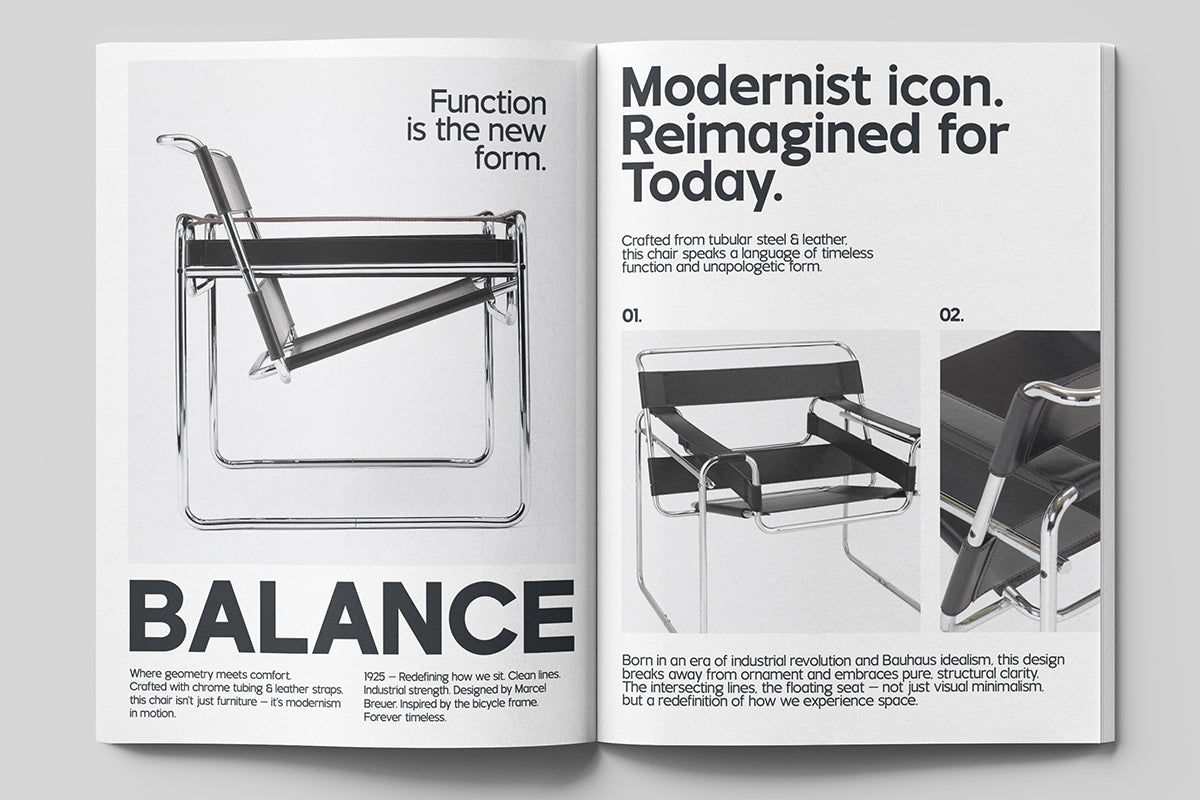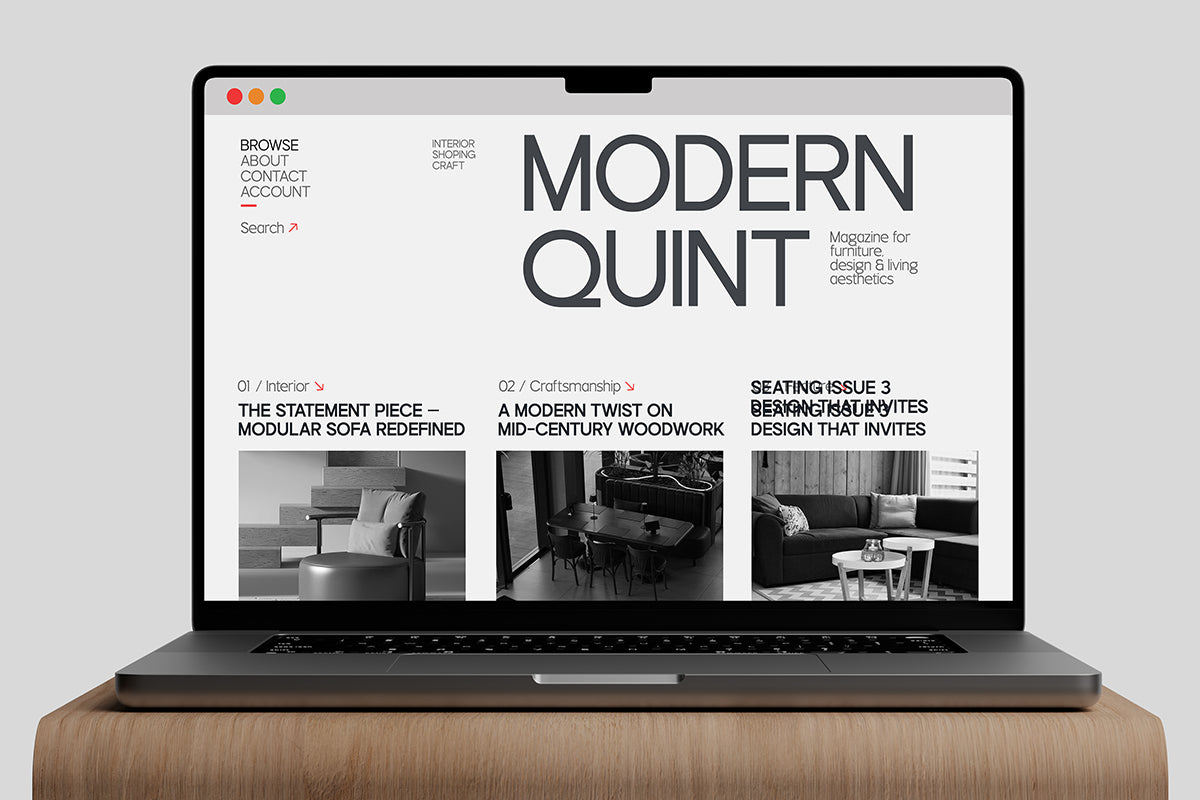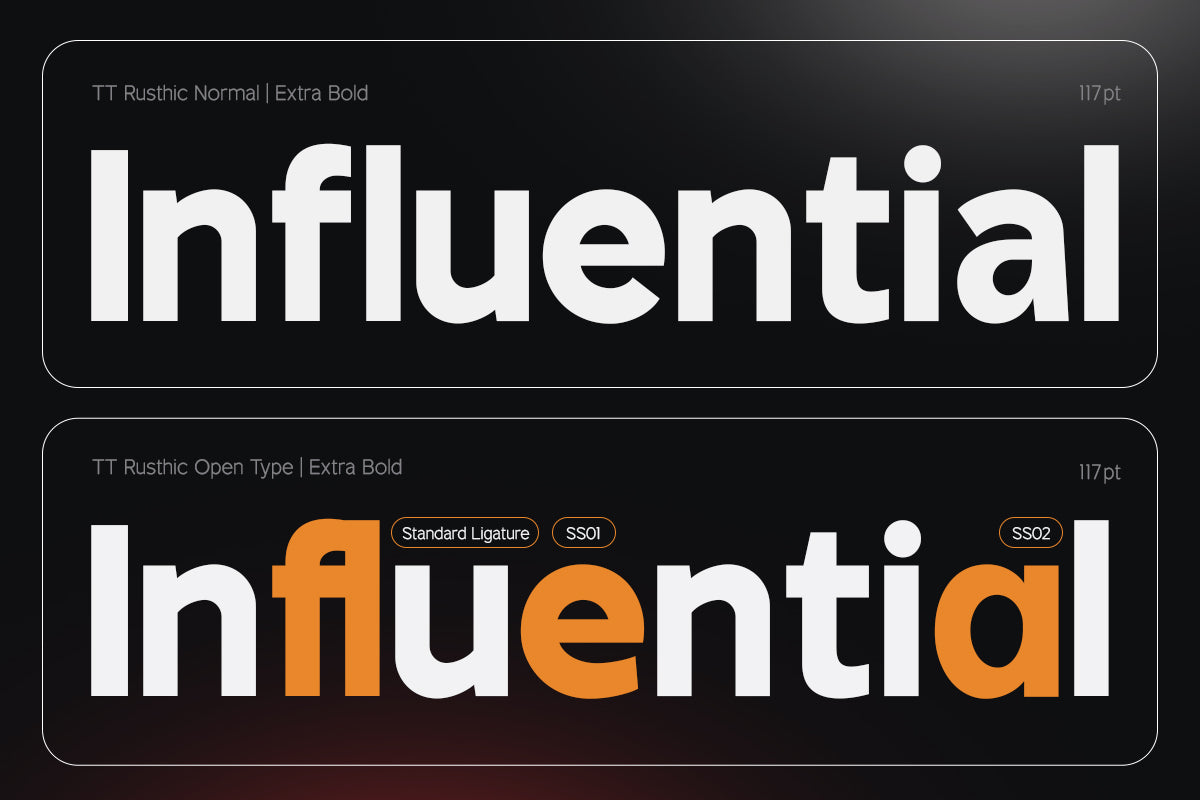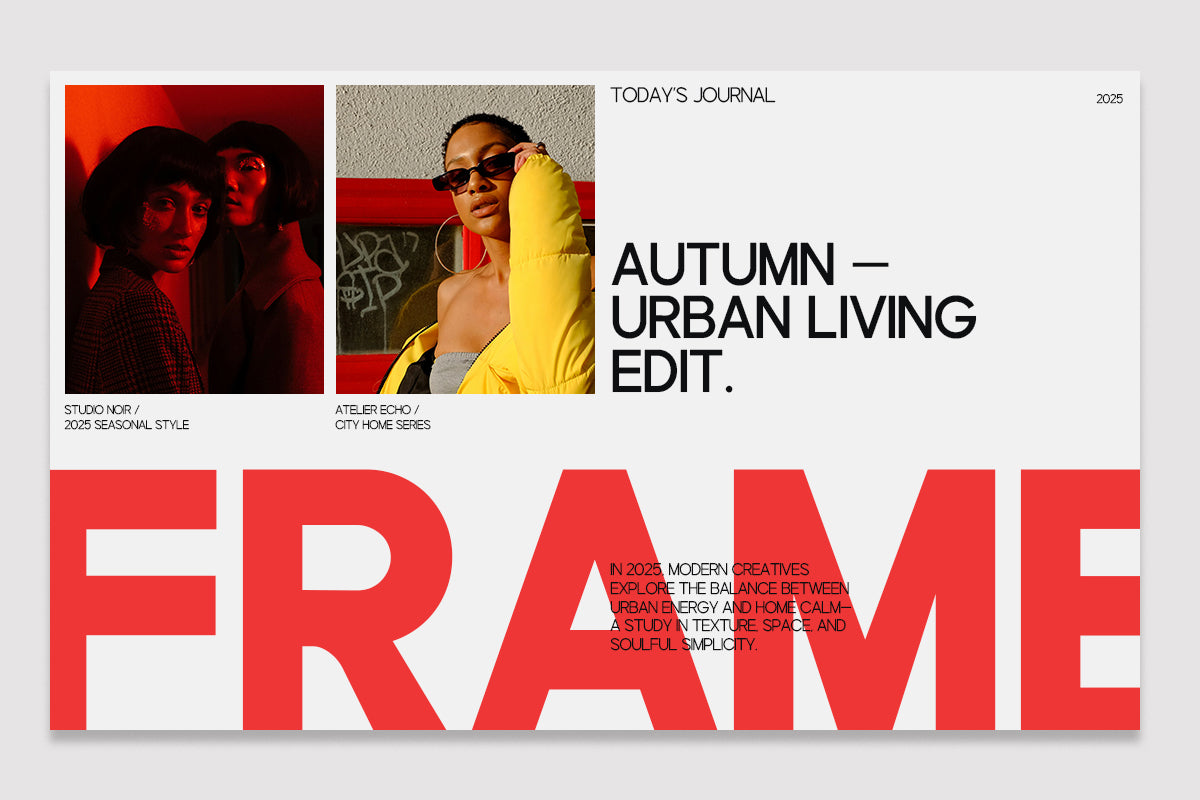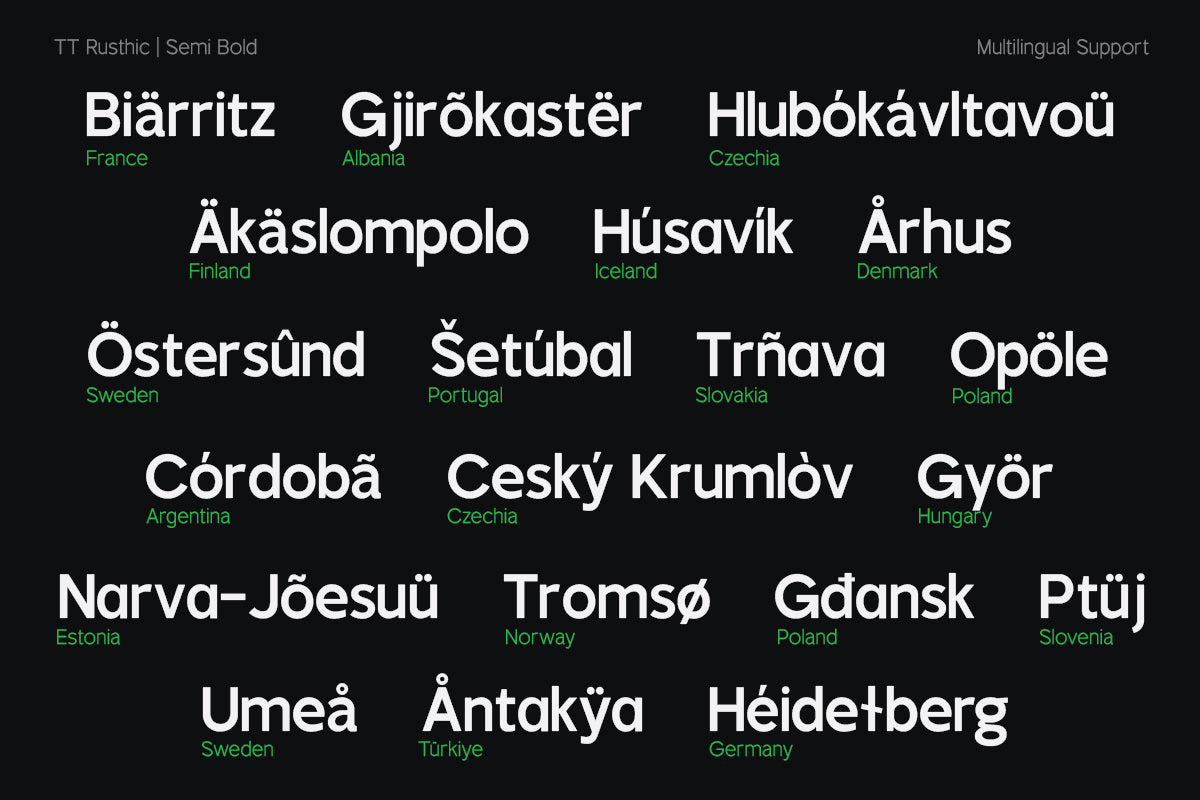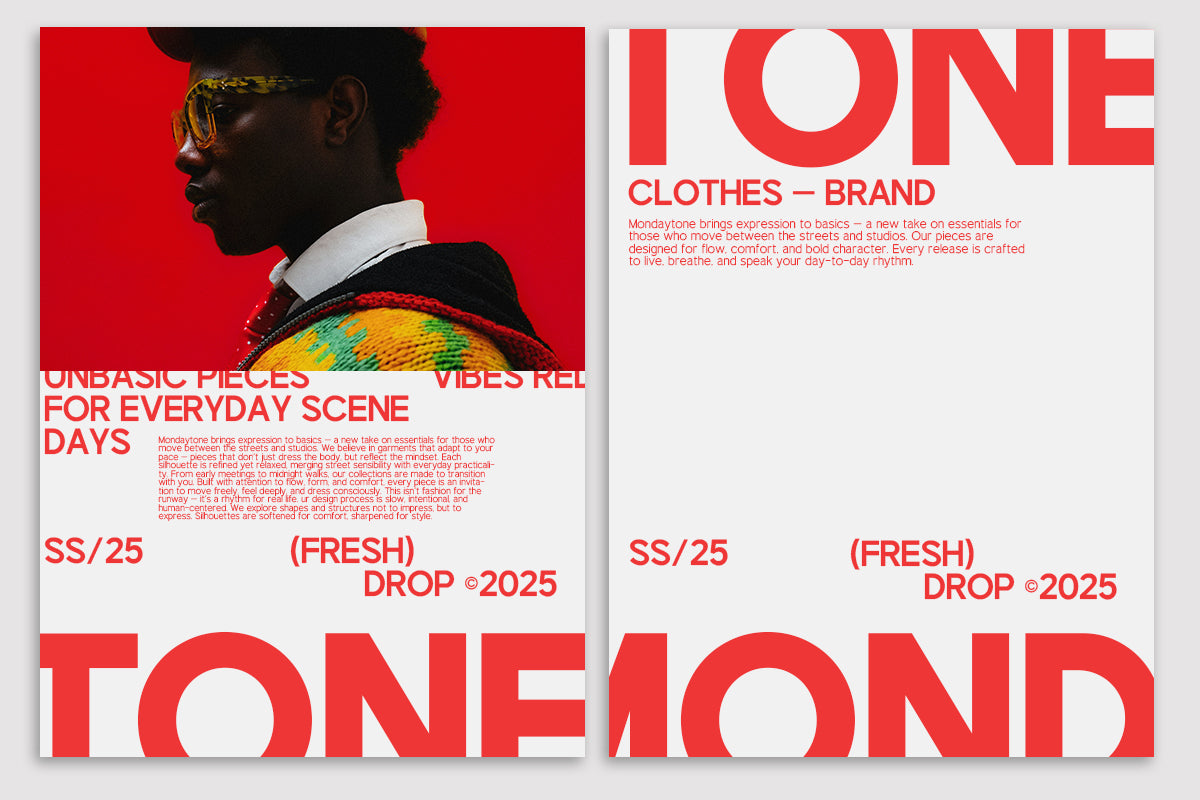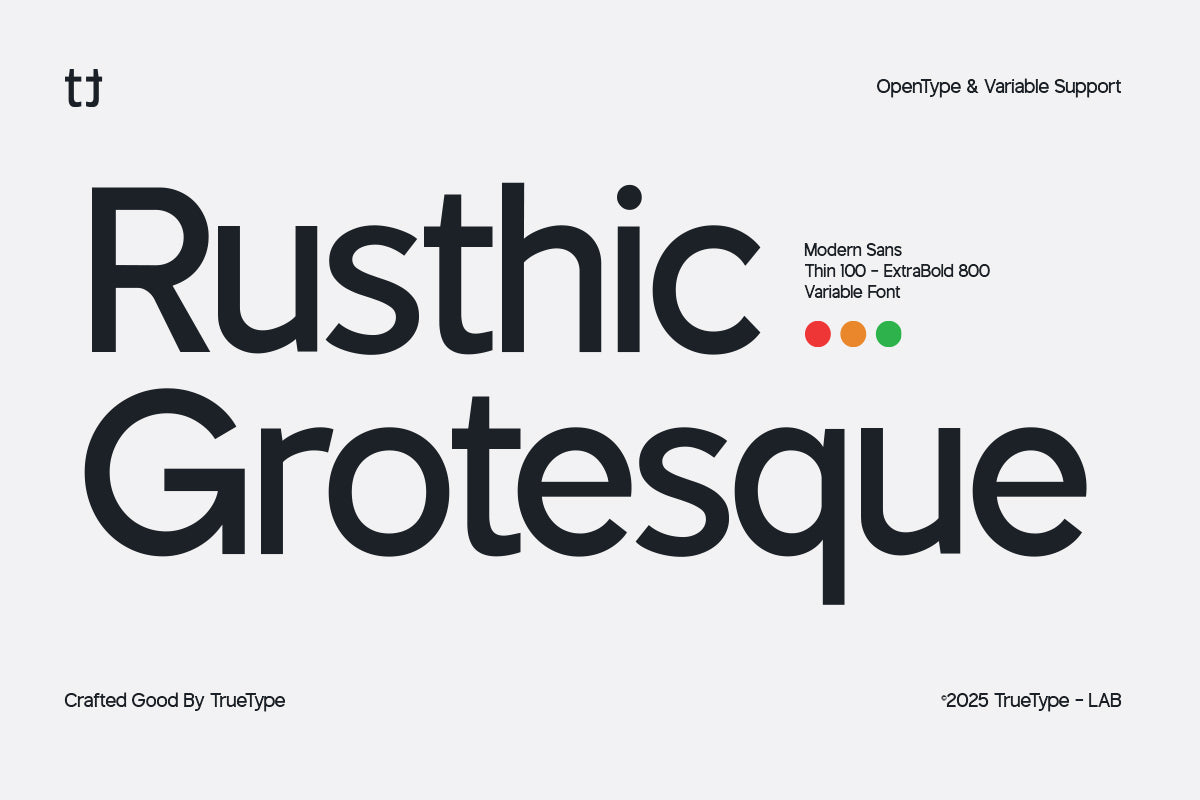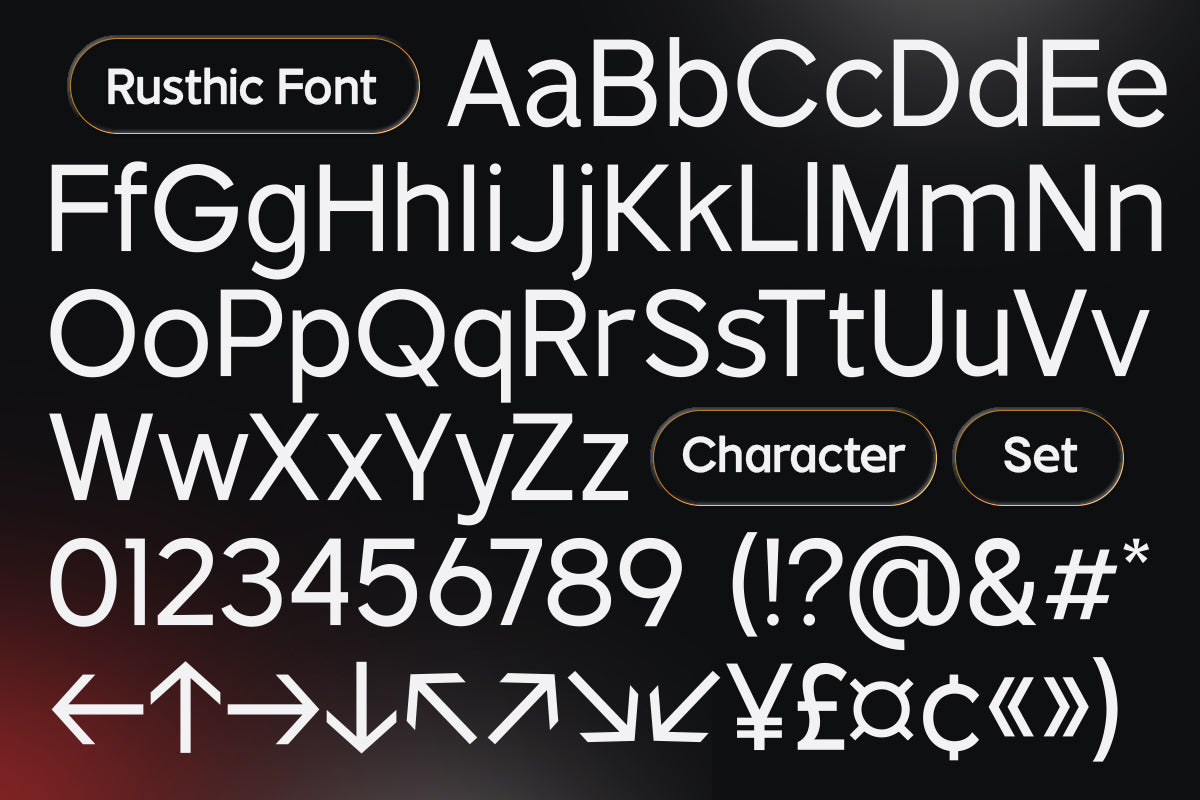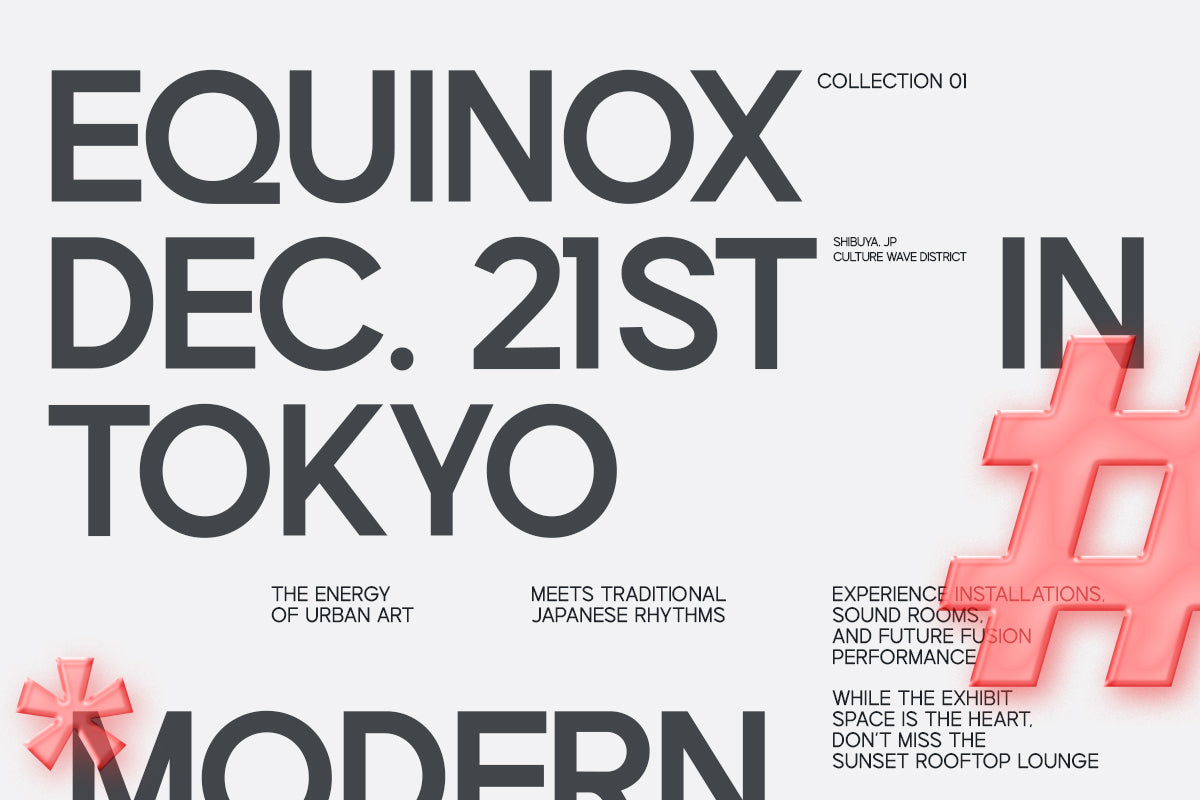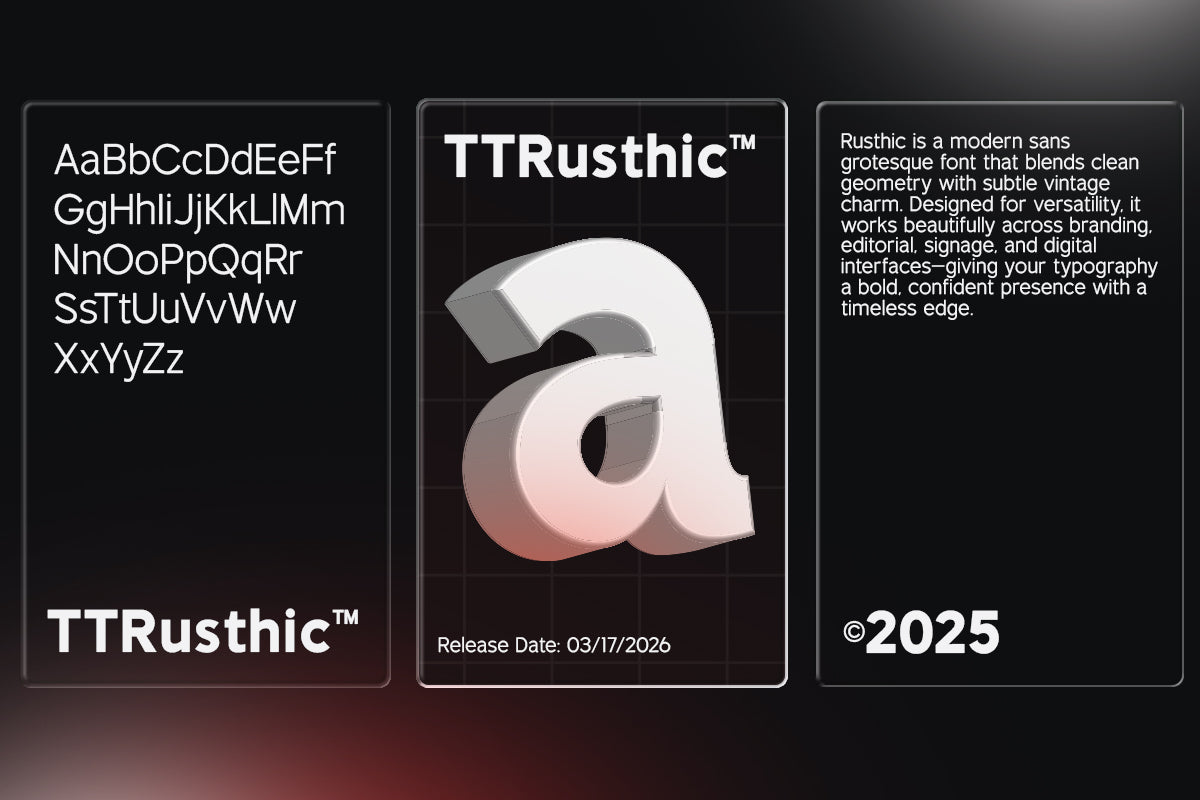
TT Rusthic created by Truetype is a modern, grotesque sans-serif font family designed to bring clarity, flexibility, and contemporary character to your creative work. With a full variable range from Thin 100 to ExtraBold 800, this font adapts easily to a wide range of visual applications—from bold headlines to sleek interface typography.
With clean curves, balanced spacing, and subtle geometric touches, TT Rusthic blends the functional simplicity of grotesque with a warm, modern soul. Its open letterforms and smooth rhythm ensure excellent readability, while its expressive weight range lets you set the right tone for your message.
Whether you're designing brand identities, editorial layouts, digital content, or packaging systems, TT Rusthic delivers a professional yet accessible feel that works beautifully in print and on screen.
Built with OpenType features and full variable support, this font is built to meet the demands of today's fast-paced design world—reliable, flexible, and deeply human.